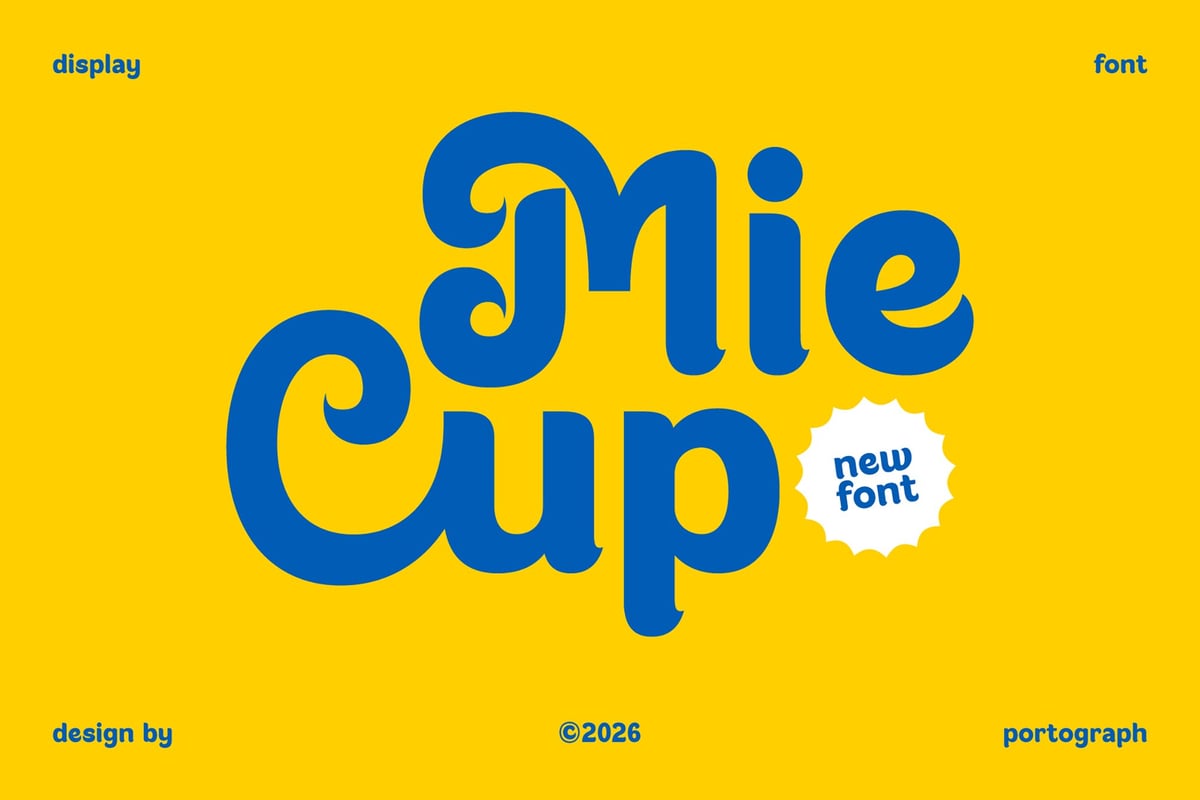
Mie Cup – Food Font
Bring bold, playful retro flair to your food branding with this eye-catching display font that instantly grabs attention. Mie Cup combines the nostalgic charm of vintage diner typography with modern food branding aesthetics. This decorative font showcases smooth curves, chunky letterforms, and a friendly character that adds flavor to any design project. The typeface features unique ligatures and expressive letters that work beautifully for attention-grabbing headlines, restaurant menus, food pac...